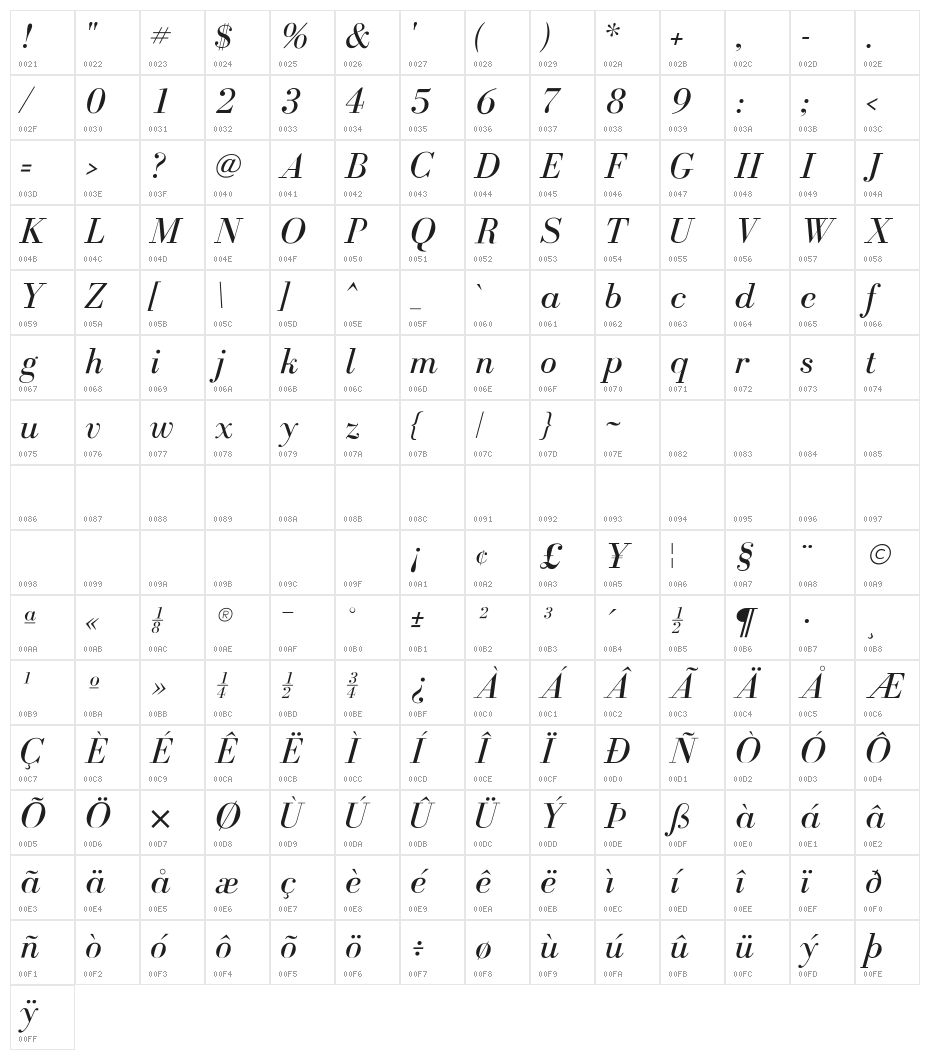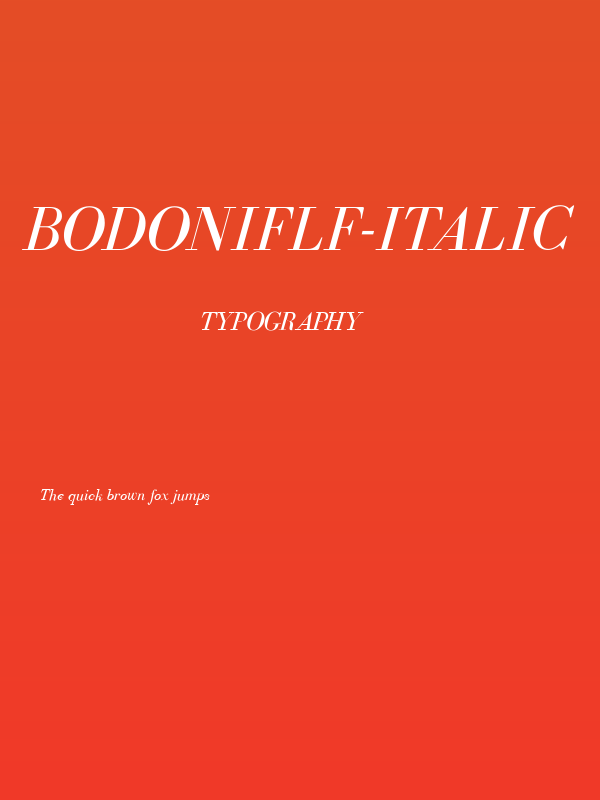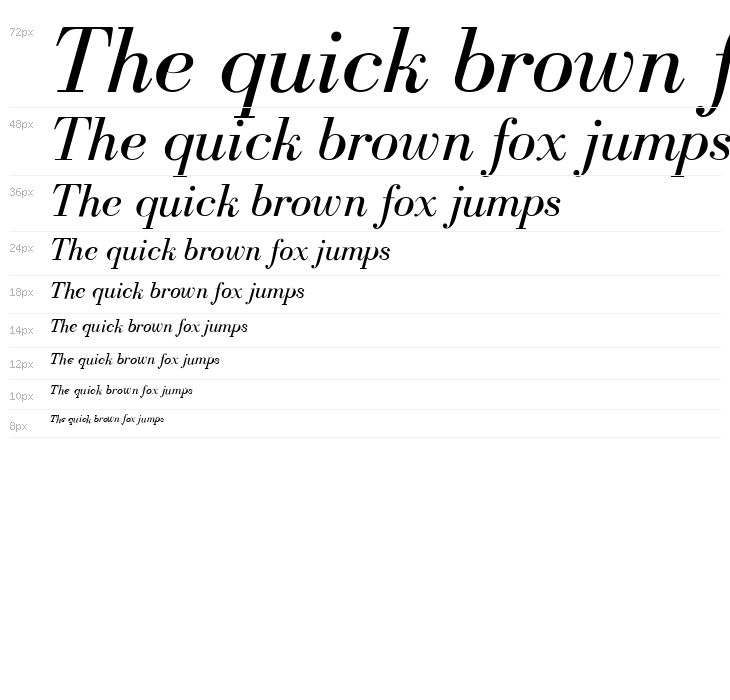
BodoniFLF-Italic Font
BodoniFLF-Italic Description
This elegant and sophisticated font features high contrast between thick and thin strokes, embodying a classic serif style with a modern twist. The italicized characters add a sense of movement and grace, making it ideal for formal and refined applications. The uppercase letters are tall and commanding, while the lowercase letters maintain a smooth and flowing appearance. The numerals are clear and distinct, ensuring readability. Special characters are designed with the same attention to detail, providing a cohesive look across all glyphs.
| Use Case | Headlines, Logos, Editorial design |
| Proposed Projects | Ideal for luxury branding, editorial design, wedding invitations, and high-end product packaging. |